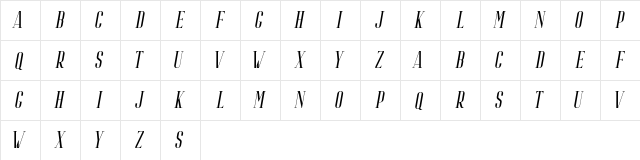
Riffle Free Italic
Design Context for Riffle Free Typeface
Riffle Free takes a measured approach to typography — its balanced proportions and neutral character make it a reliable workhorse for both digital and print work. The dynamic lean of this cut emphasises speed and emphasis in any layout.
Pro Tip: Use Riffle Free for emphasis, pull quotes, and subheadings where its slanted energy can add rhythm to the layout.